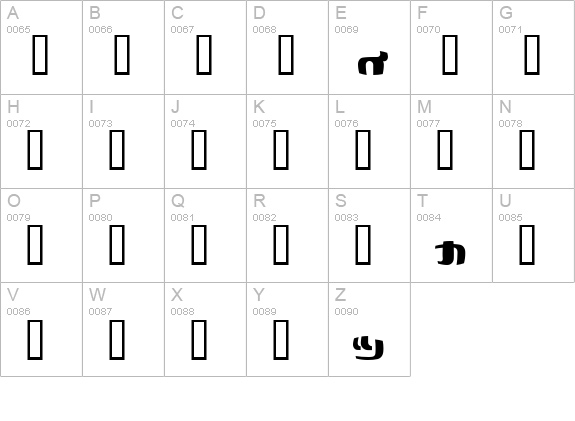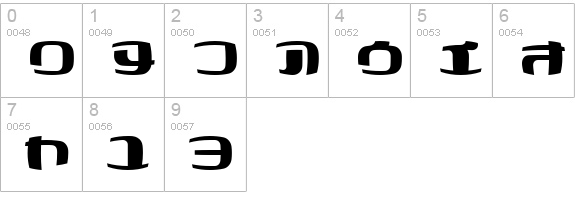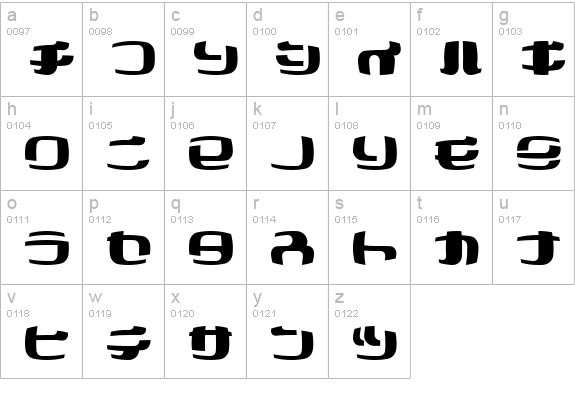
I2Cocoon Font Details
I2Cocoon font is a stunning display font that combines elegance and versatility. This font is perfect for adding a touch of sophistication to any design project, whether it's a logo, a website, or even a printed piece. With its unique and intricate letterforms, I2Cocoon font will instantly captivate attention and make a lasting impression. What sets I2Cocoon font apart is not only its impeccable design but also its accessibility. This font is freely available to download at FontsMarket.com, making it a valuable addition to any designer's toolkit. Whether you're a professional designer or a hobbyist, I2Cocoon font offers endless creative possibilities without any cost. Featuring a wide range of characters, including uppercase letters, lowercase letters, numerals, and punctuation marks, I2Cocoon font is incredibly versatile and can be used in various design contexts. Its clean lines and balanced proportions ensure legibility, regardless of the size or medium. The beauty of I2Cocoon font lies in its ability to effortlessly blend with different design styles. Whether you're aiming for a modern and minimalist look or a more ornate and decorative aesthetic, this font will exceed your expectations. Its timeless appeal and attention to detail make it suitable for a wide range of applications, from branding and packaging to invitations and posters. With its seamless compatibility with both print and digital media, I2Cocoon font ensures consistency across various platforms. Its high-quality rendering ensures that your designs will look exceptional whether they're printed or displayed on screens. In conclusion, I2Cocoon font is a must-have for any designer seeking a versatile and visually striking font. And the best part is, it's available for free download at FontsMarket.com. Don't miss the opportunity to enhance your designs with this remarkable font and elevate your creative projects to new heights.